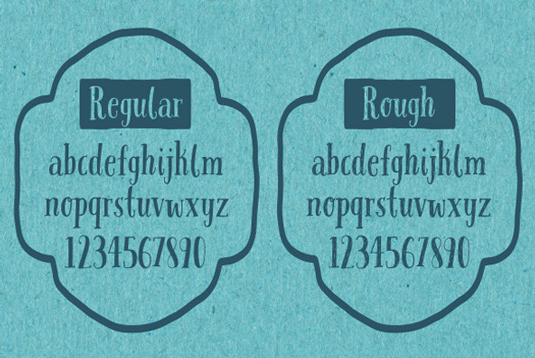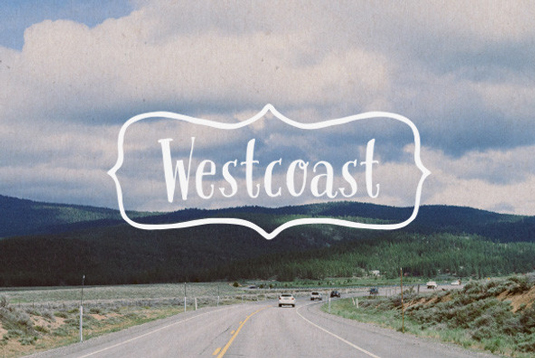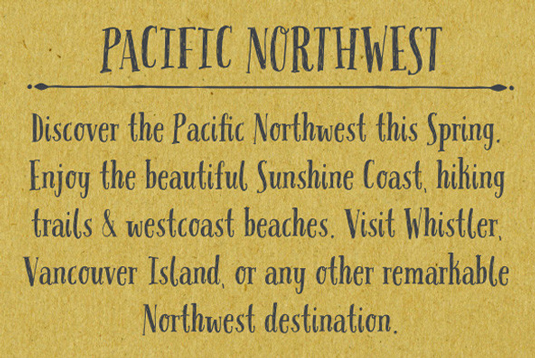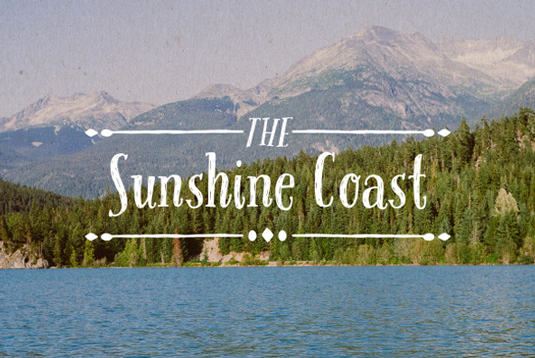
Font of the day: Pacific Northwest Letters
Pacific Northwest Letters by Cultivated Mind
Today's font of choice comes from Vancouver-based foundry Cultivated Mind, founded by designer Cindy Kinash. Pacific Northwest Letters is a fun, handwritten font and is unique in the fact that it was created with the careful strokes of a paintbrush.